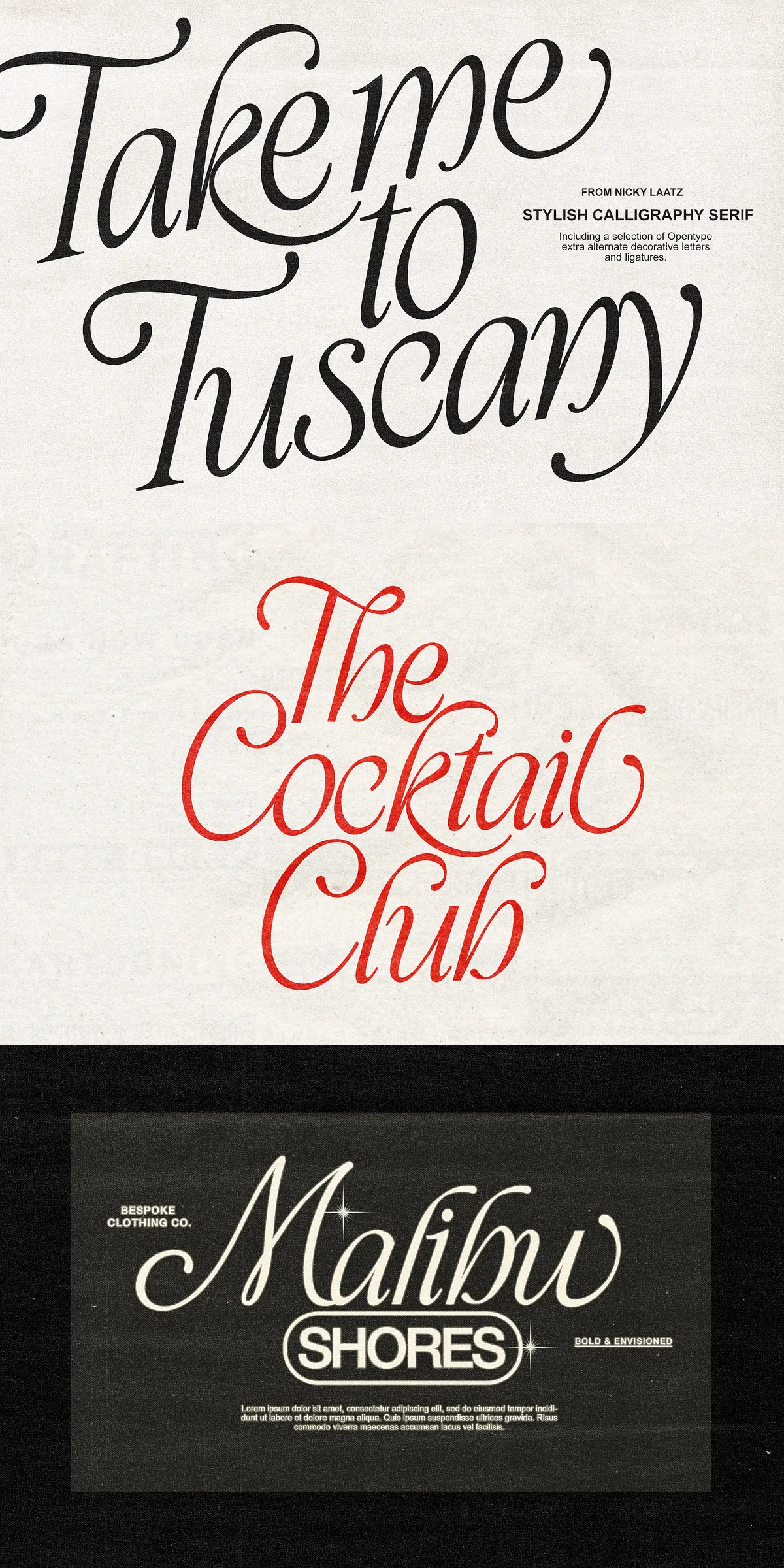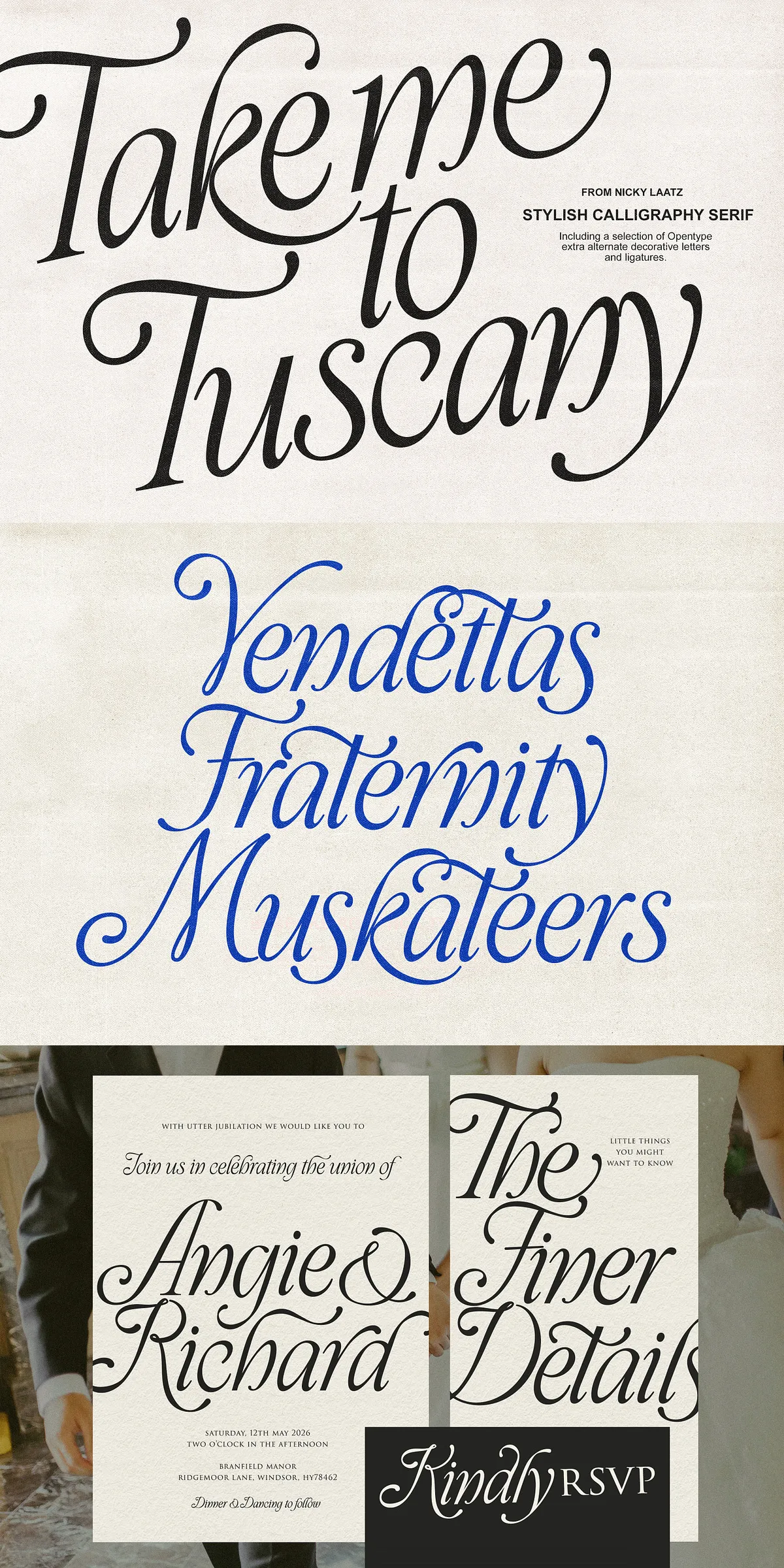
Take Me To Tuscany Typeface
Step into a world of elegance and refined artistry with Take Me To Tuscany, a calligraphy italicized serif font that exudes regality and romantic charm. Designed with elegant curves and delicate flourishes, this typeface captures timeless sophistication through its extended strokes, exaggerated loops, and exquisite decorative elements. Whether you are crafting high-end branding or creating prestigious invitations, Take Me To Tuscany brings a distinguished presence to every design project.
Highly Stylized Letterforms and Ornate Details
Take Me To Tuscany features intricately designed letterforms that fuse classic handwritten script influences with modern precision. Its ornate swashes and delicate embellishments create a visually striking and artistic style that resonates deeply with heritage and luxury aesthetics. Despite its lavish decorations, the font maintains robust readability through a well-structured form and precisely calibrated letter spacing, ensuring your message is clear without sacrificing beauty.
Versatile Usage Across Sophisticated Applications
This versatile typeface is perfectly suited for a wide range of elite creative projects. Use Take Me To Tuscany to elevate luxury branding such as fashion labels, upscale perfumeries, or premium event invitations. It also performs impeccably in editorial contexts, making it an excellent choice for book covers, particularly historical fiction, and elegant magazine mastheads. Furthermore, the font shines in identity design, especially for classic or heritage brands, boutique logos, and exclusive membership-based organizations, offering a distinct sense of class and refinement.
Bonus Variants for Perfect Customization
Understanding that typography requires precision, Take Me To Tuscany comes with thoughtfully designed bonus variant styles. These variants differ subtly in weight, slant, or a combination of both, providing designers with the flexibility to fine-tune the appearance for optimal harmony in any layout. This attention to detail ensures that your type design always fits perfectly within your overall creative vision.
Extensive OpenType Features and Accessible Alternates
The typeface includes a vast collection of 82 alternate letters and ligatures that add dynamic charisma to your typography. These features facilitate creative expression and allow for unique, personalized text compositions. For users of Canva or other software lacking OpenType support, Take Me To Tuscany is PUA encoded, enabling easy access to these special characters without additional tools.
Multilingual Support for Global Reach
Take Me To Tuscany supports a broad array of languages, including Cornish, Danish, English, French, German, Italian, Luo, Luxembourgish, Norwegian Bokmål, Norwegian Nynorsk, Portuguese, Spanish, Swedish, and Swiss German. This wide linguistic range makes it suitable for international branding and publishing projects, ensuring your elegant messaging transcends borders with cultural sensitivity and accuracy.
Why Choose Take Me To Tuscany for Your Creative Needs
In summary, Take Me To Tuscany embodies a rare blend of heritage-inspired artistry and contemporary sophistication. Its regal italicized calligraphy style, combined with practical readability and comprehensive OpenType features, makes it an indispensable tool for designers working within luxury, editorial, and identity landscapes. The font’s multiple weights and bonus variants provide the adaptability to fit precisely within your typographic needs, while its extensive language support extends its usability worldwide.
Whether you are designing a prestigious book cover, an exclusive brand identity, or luxurious event invitations, Take Me To Tuscany gives your projects a timeless, commanding presence that captivates your audience and elevates your message with unmistakable elegance.